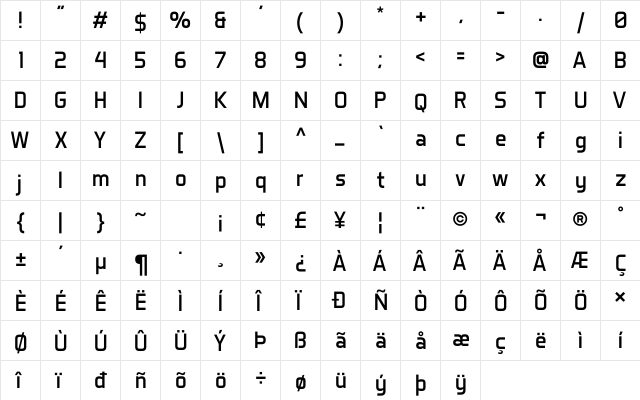
Aero Matics Regular
| Designer | Jayvee D. Enaguas (GrandChaos) |
Design Context for Aero Matics Typeface
Aero Matics offers clean, dependable letterforms without strong stylistic allegiance, making it a practical choice for designers who need flexibility.
Pro Tip: Pair Aero Matics with a font of contrasting weight or personality to build a more expressive typographic hierarchy.